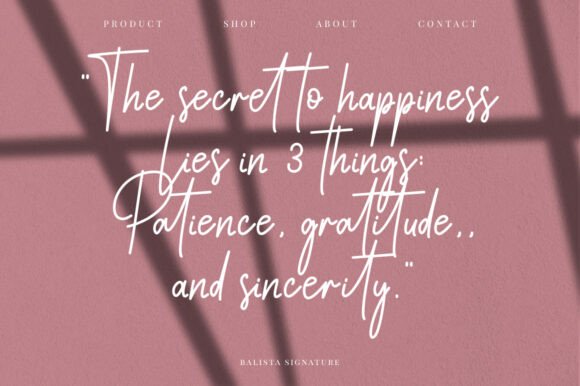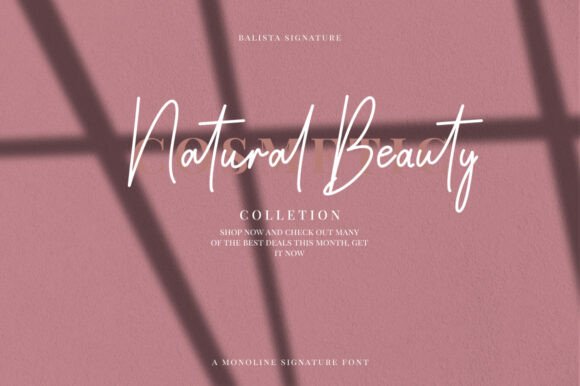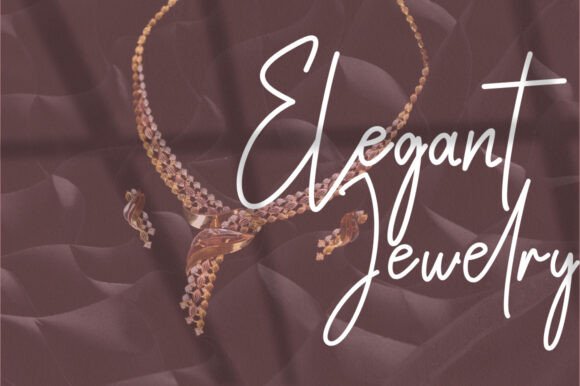
Introduction to Balista Font
Balista is an exquisite handwritten font, masterfully designed to become a true favorite.
Why Choose Balista Font?
Balista Font offers exceptional quality and versatility, making it a valuable addition to your design toolkit. Whether you’re creating for personal projects or commercial use, Balista Font delivers professional results.